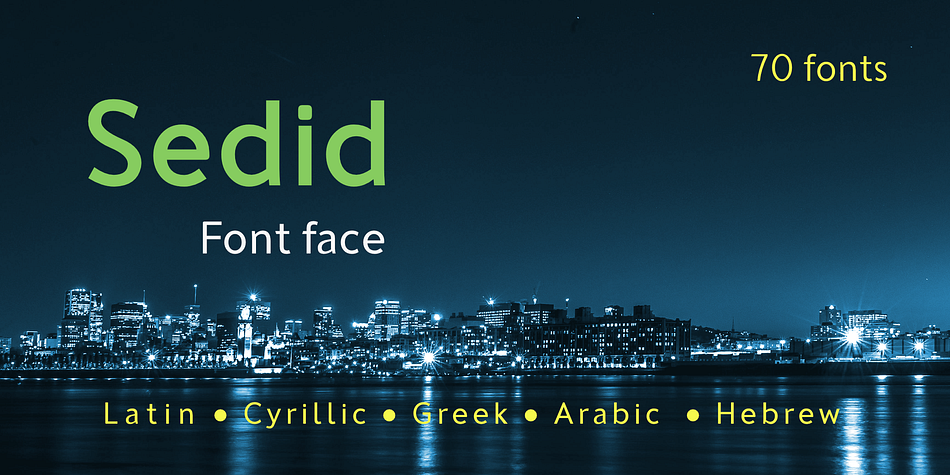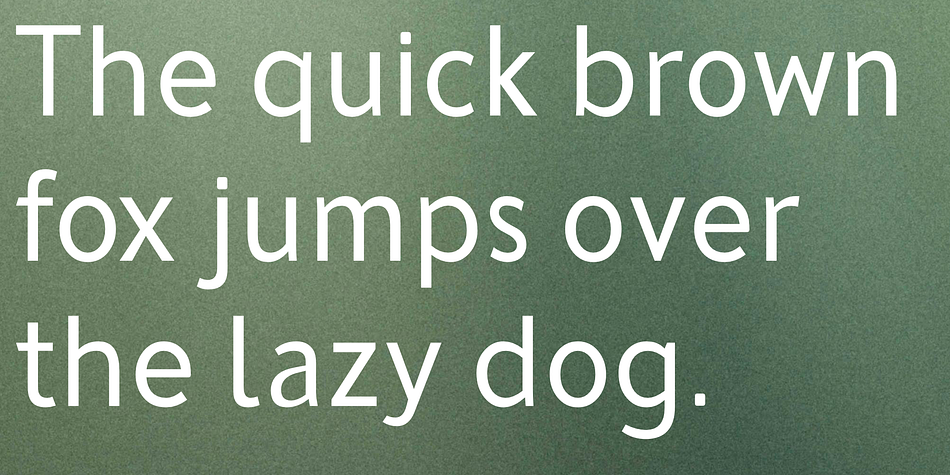
Sedid
Designed by İsmail AYDIN, Sedid is a sans serif font family. This typeface has sixty styles and was published by Fontuma.
Sedid, “solidity; It is an Arabic term meaning “righteousness”. In particular, the correctness and soundness of a word is indicated by this word. The fact that I gave this name to the writing family is to point out its accuracy and robustness. This typeface, which is sans serif, consists of three families:
▪ Sedid: A family of typefaces including Latin, Cyrillic, Greek, Arabic and Hebrew alphabets
Those who want to meet a new face of writing for their works and projects and make a difference in their work should meet the Sedid writing family. This typeface is as serious as it is affectionate, and solid as well as elegant. The Sedid font family can be used as a text and title font in all publishing and printing areas, magazines, newspapers, books, banner and poster designs, and websites. Sedid also has a pleasant-looking, flexible face with smooth lines and transitions. The inner and outer spaces of the font are proportioned so that the text can be read easily. Sedid font family consists of 14 fonts, seven plain and seven italic. The font family includes open type features, as well as a large number of ligatures, small caps, modifiers, and currency symbols of many countries.